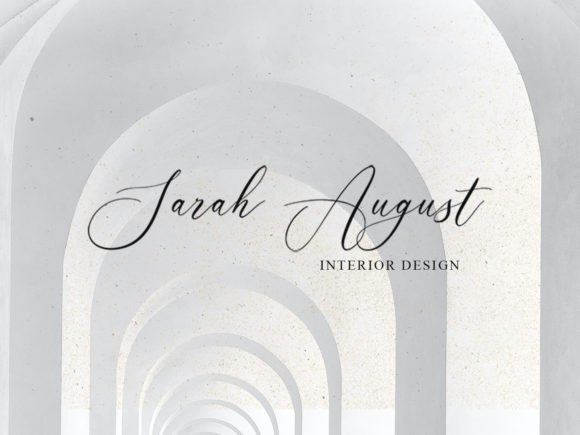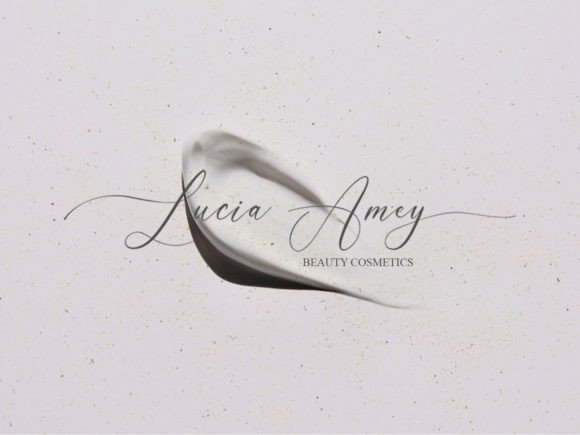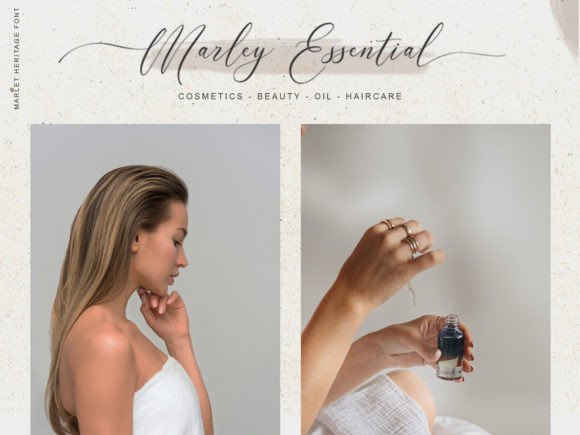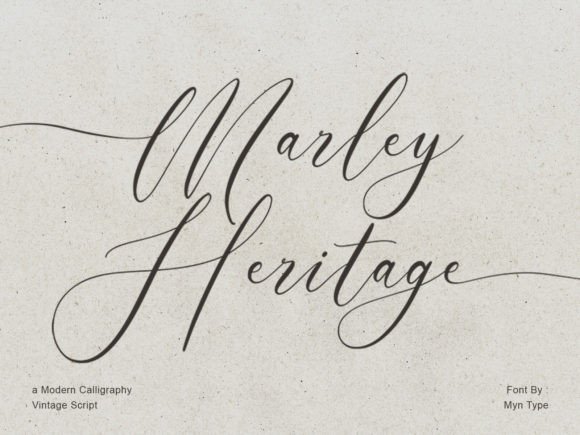
Introduction to Marley Heritage Font
Marley Heritage is a modern calligraphy vintage script.
This is a beautiful font with thin line strokes It’s perfect for calligraphy logos for branding, wedding invitations, elegant websites, gifts, social media posts, and more.
Key Features of Marley Heritage Font
Why Choose Marley Heritage Font?